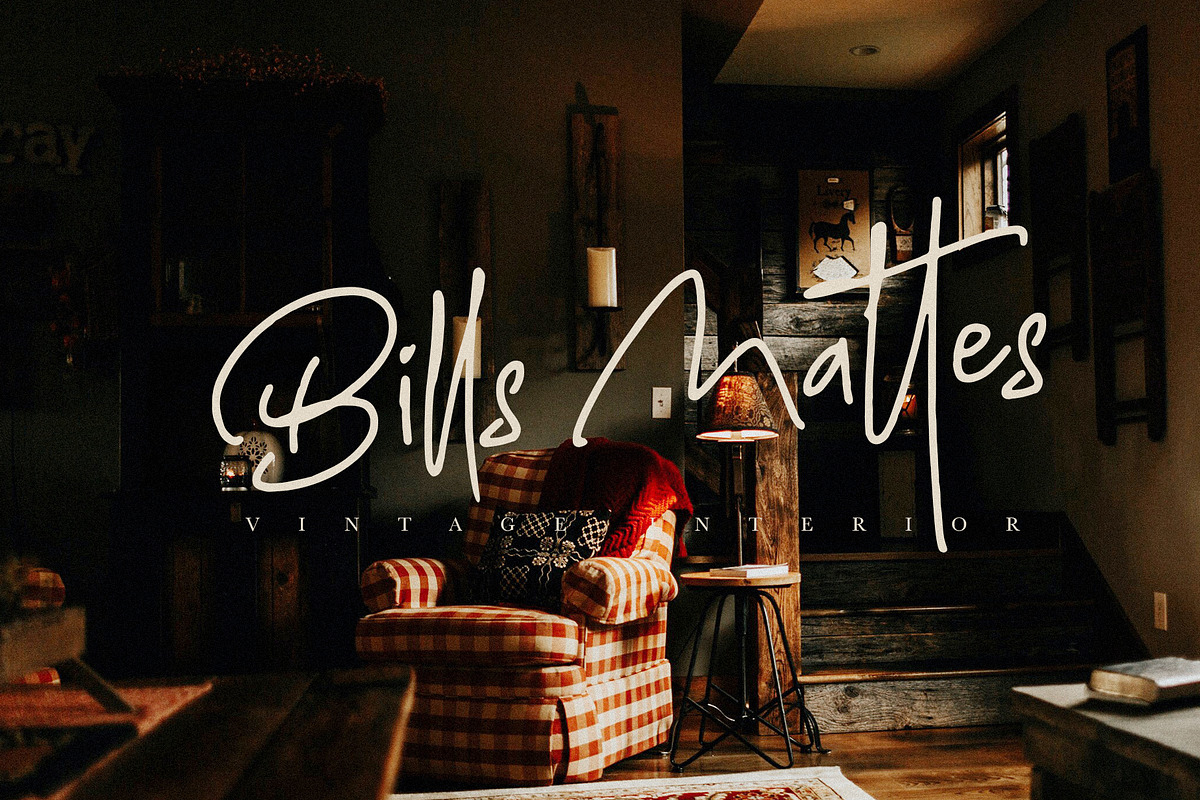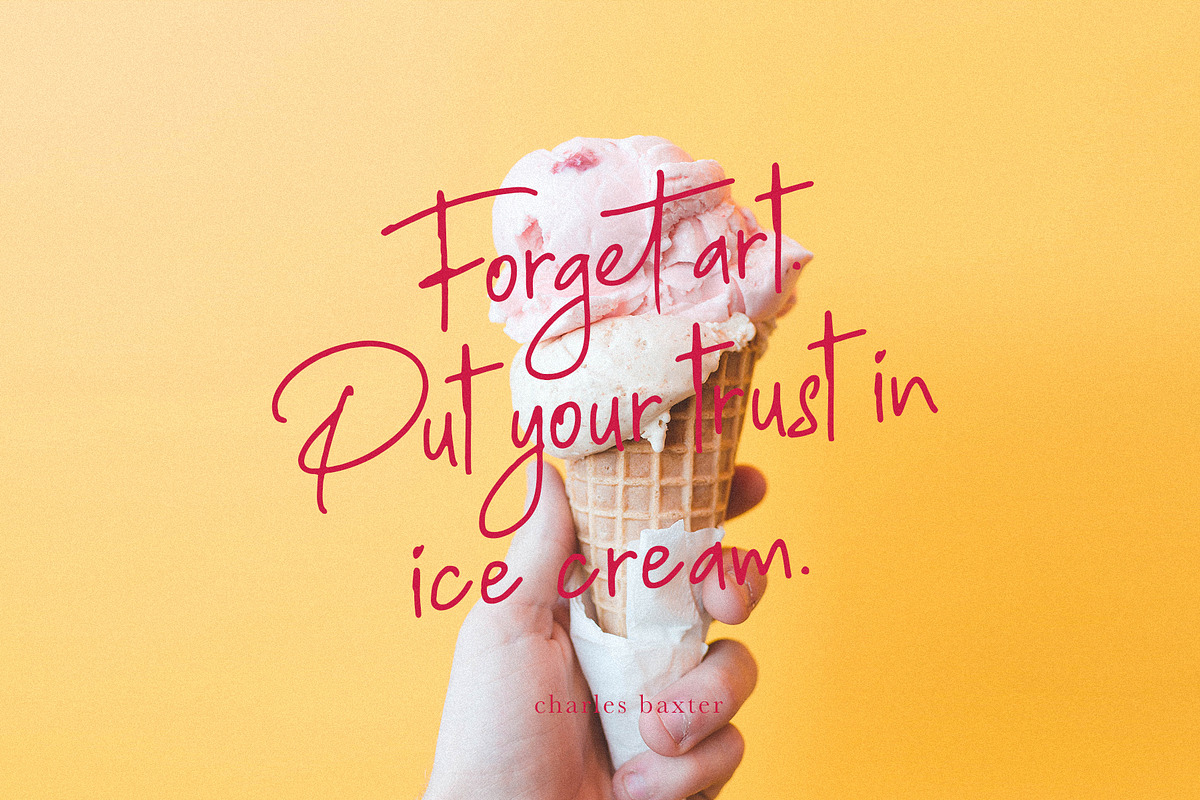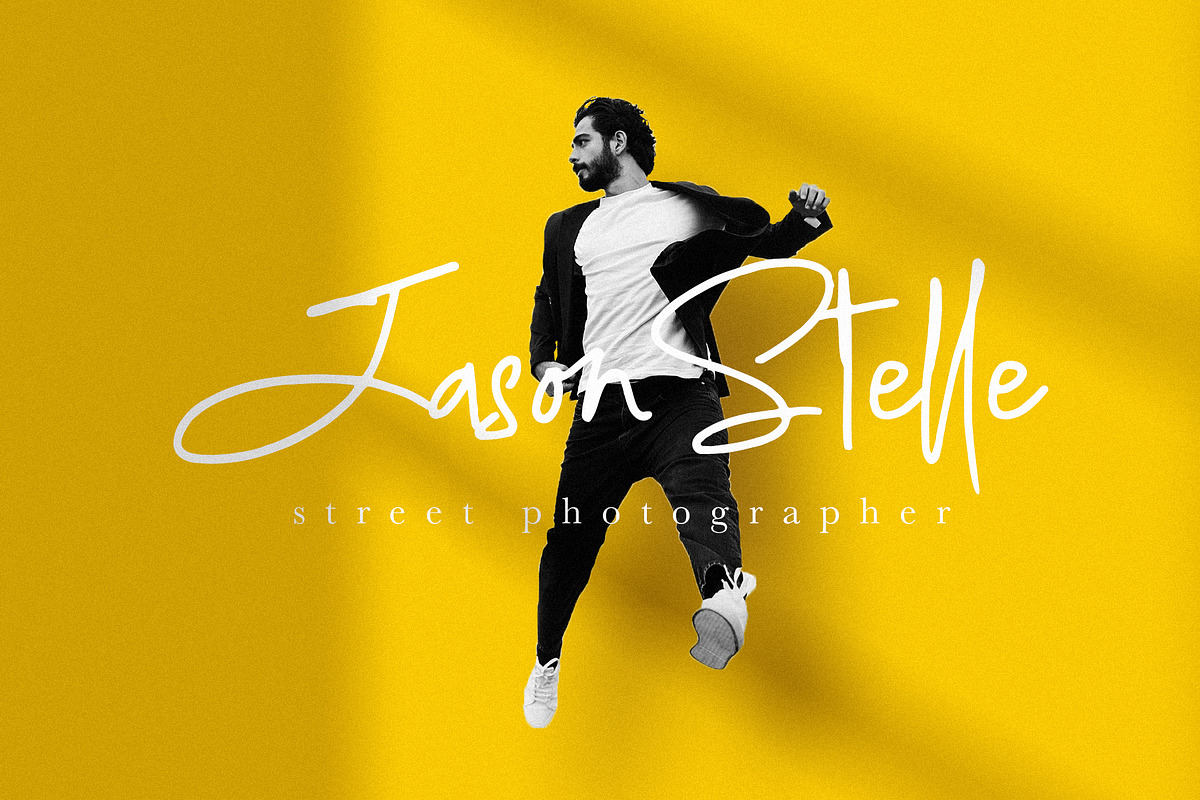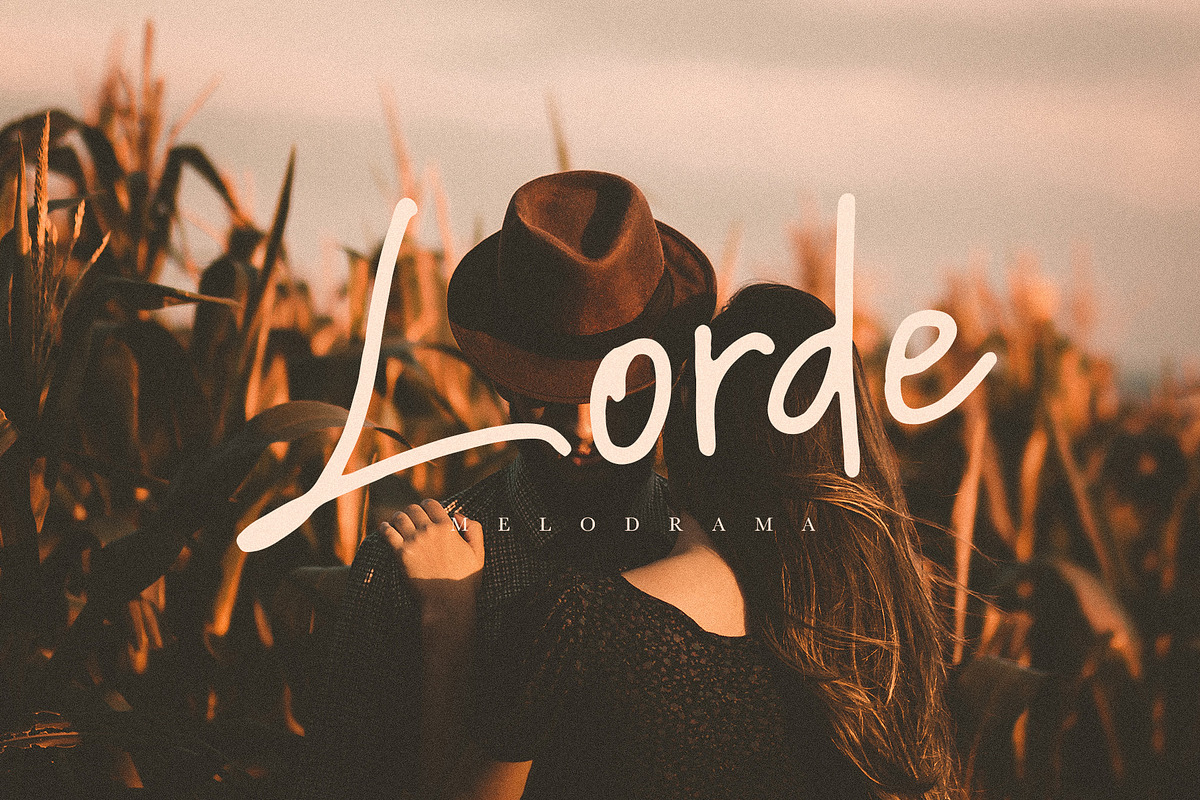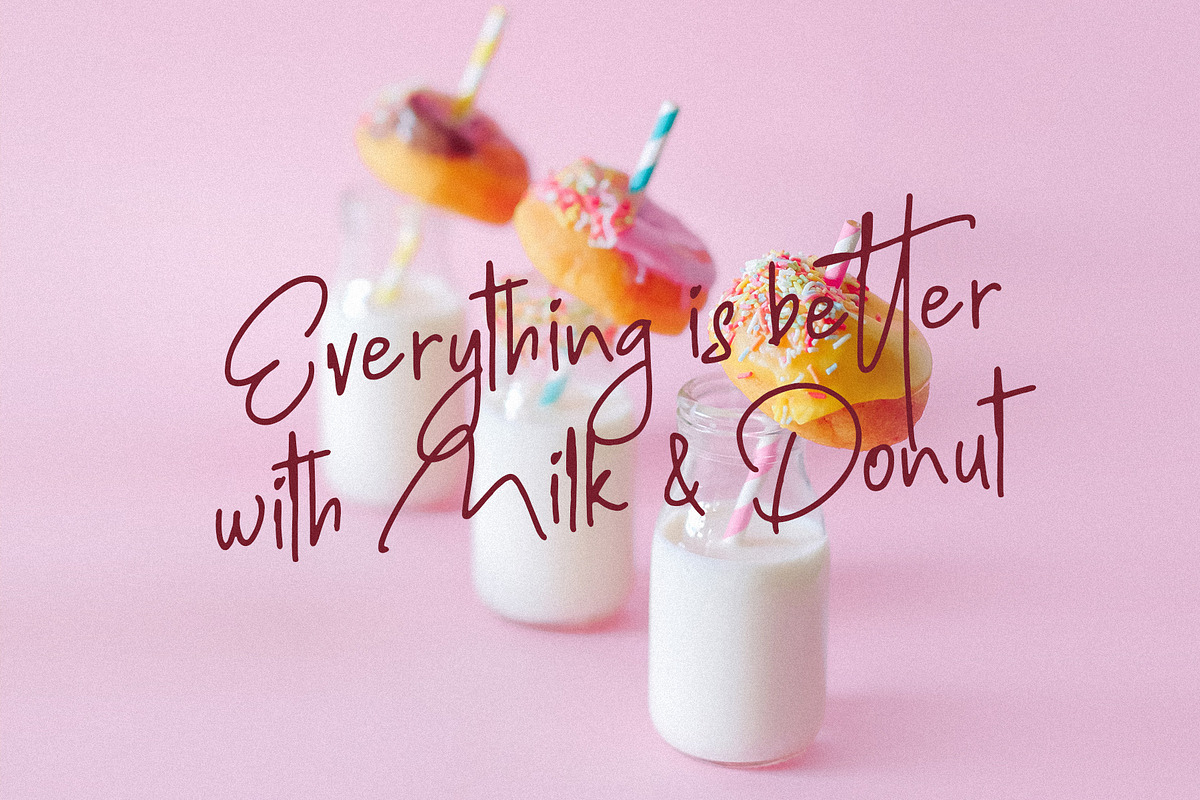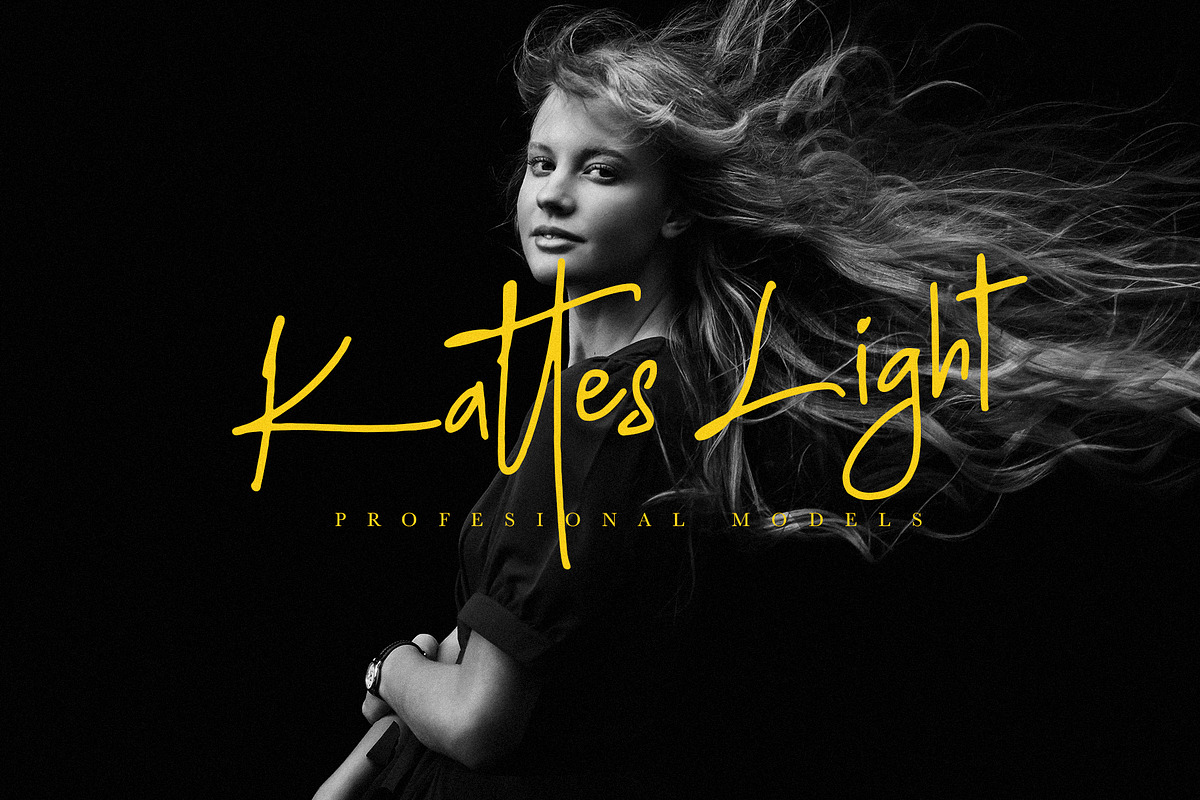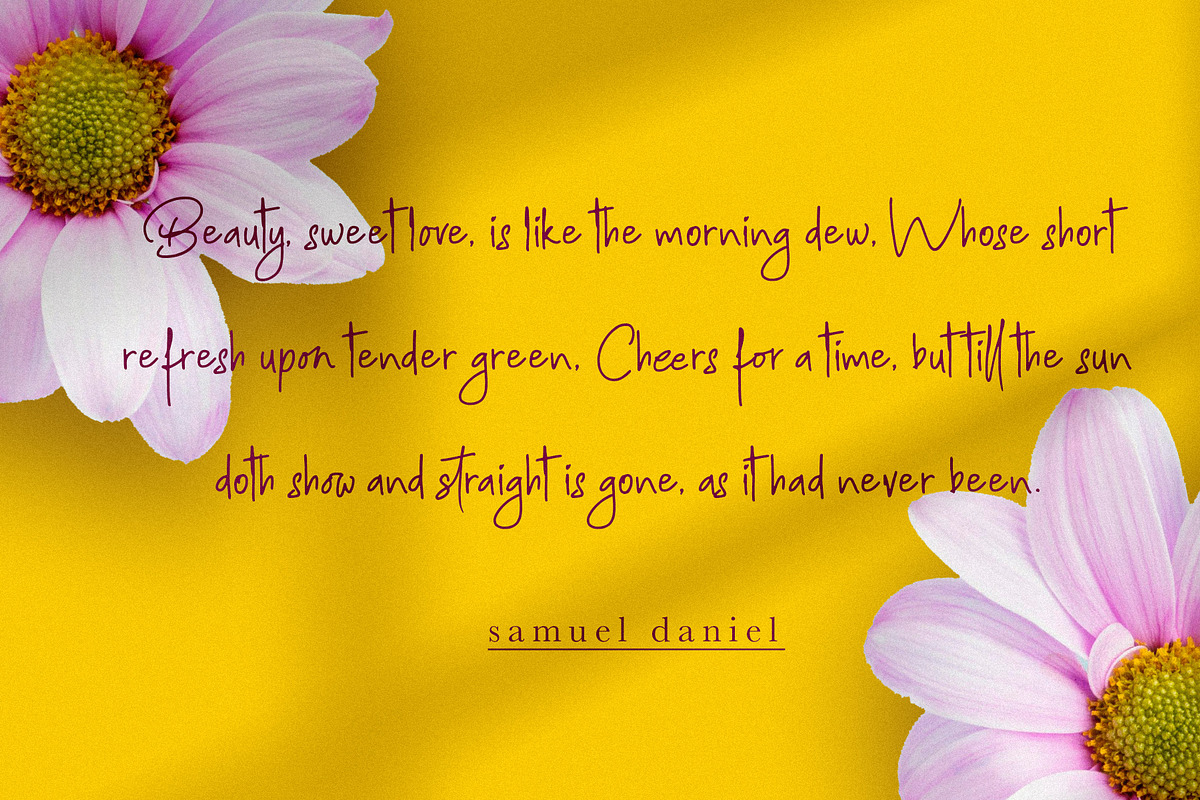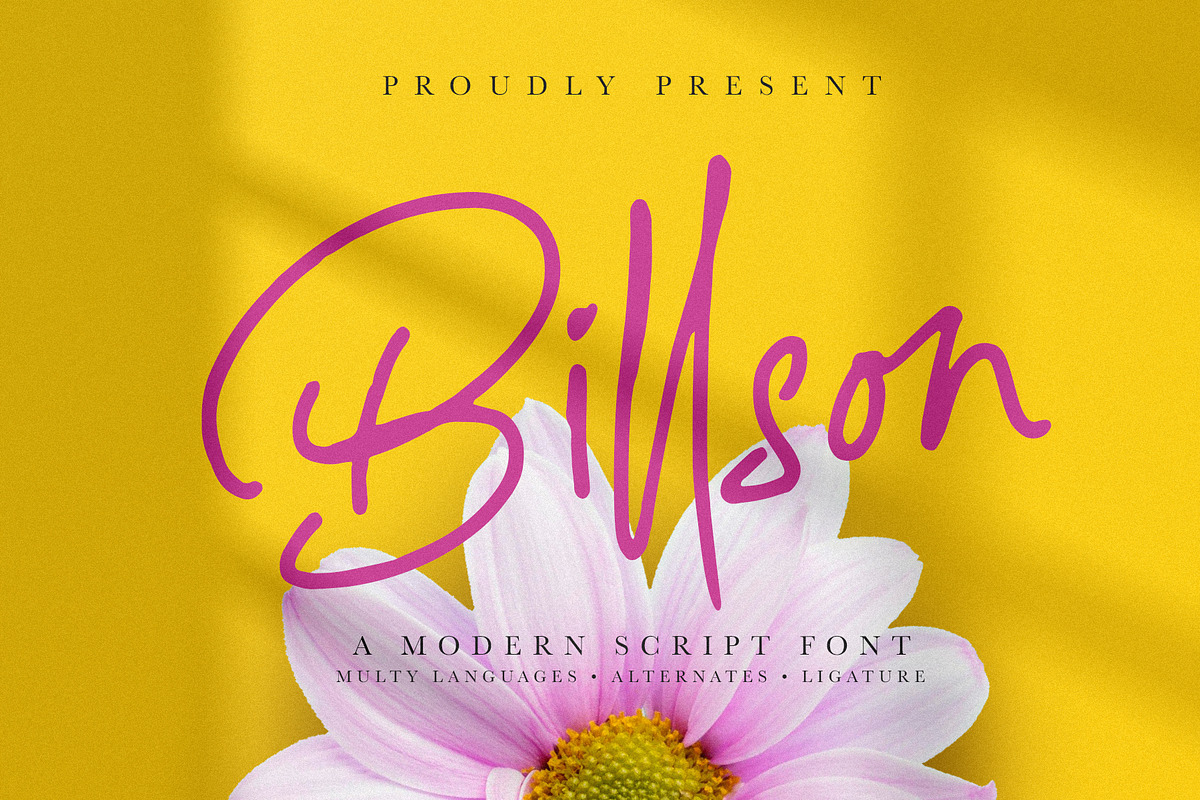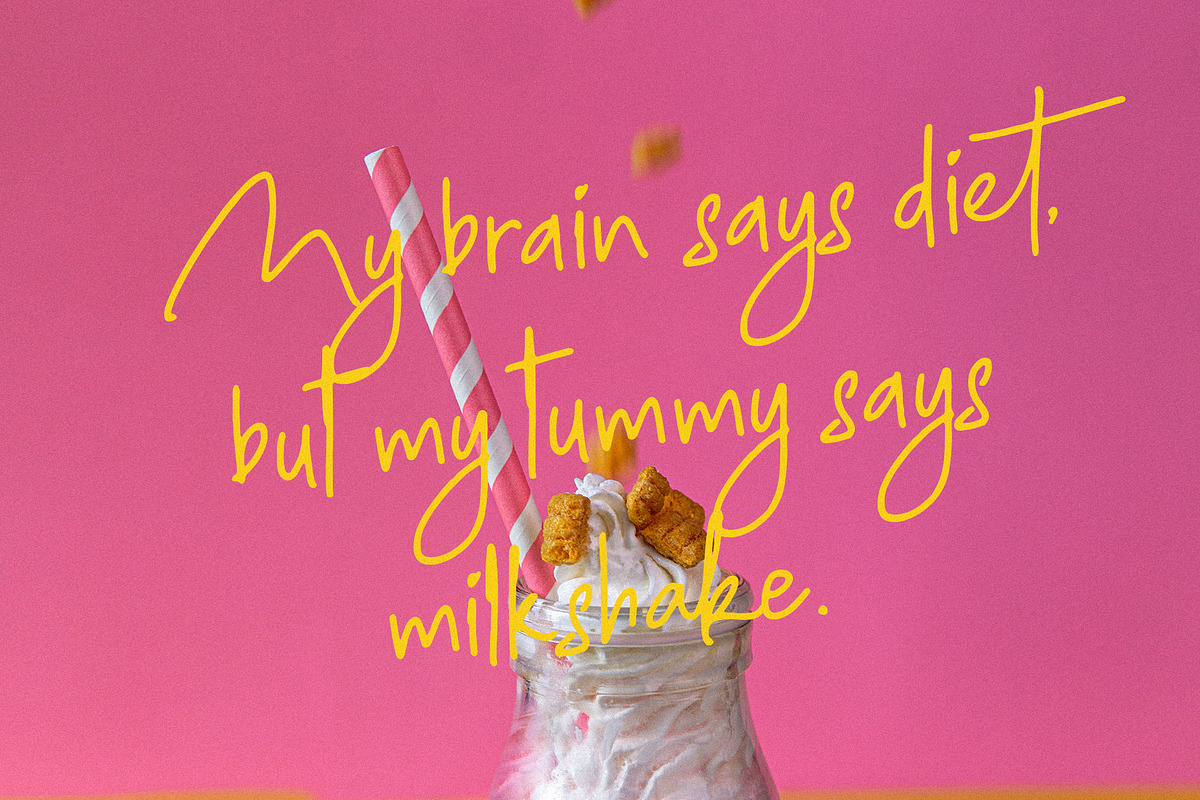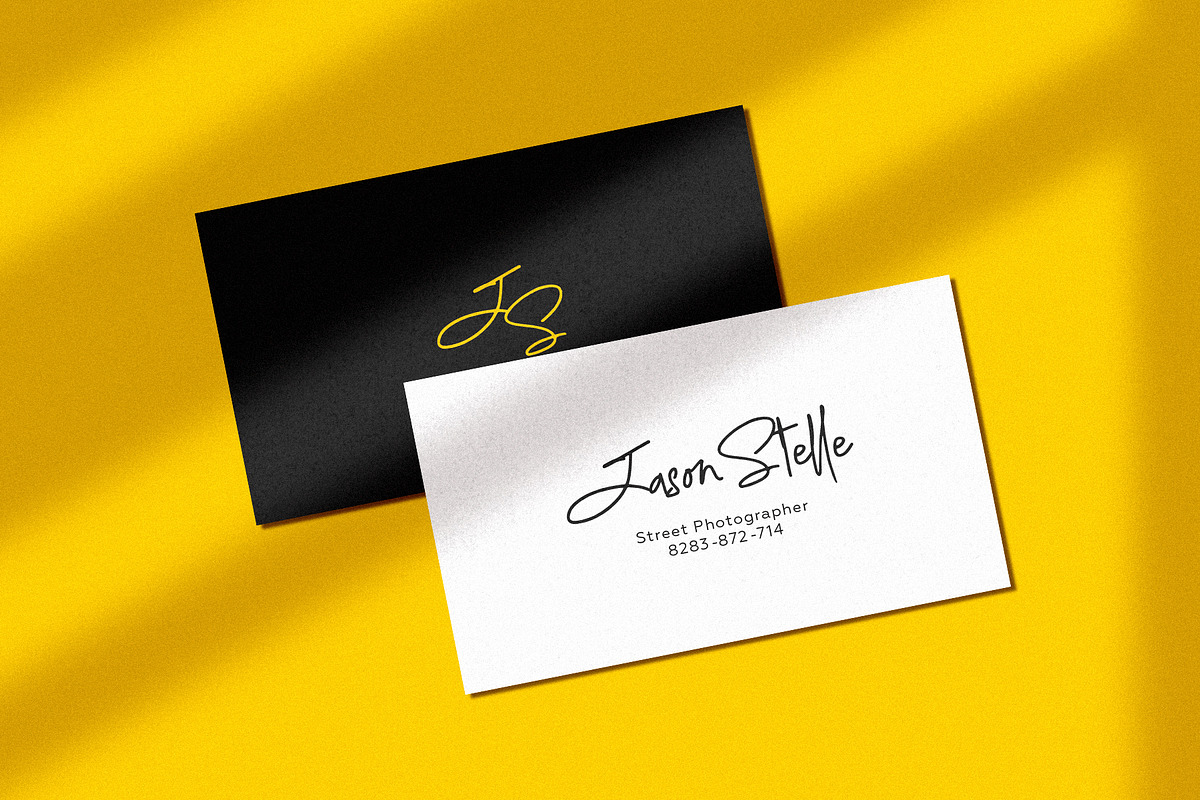
Billson Script
Introducing, Billson Script Font with signature style.
This font will look outstanding in any occasion design concept, whether it’s being used on colorful backgrounds or as a stand as a headline in the minimalist background!
Billson has multi-language support, swashes, alternate and ligature. Please enjoy the Billson Script Font and makes some stunning designs, like name cards, posters, invitations, quotes, logos, signature logos, packaging, prints ads and this font also good for kids media branding.